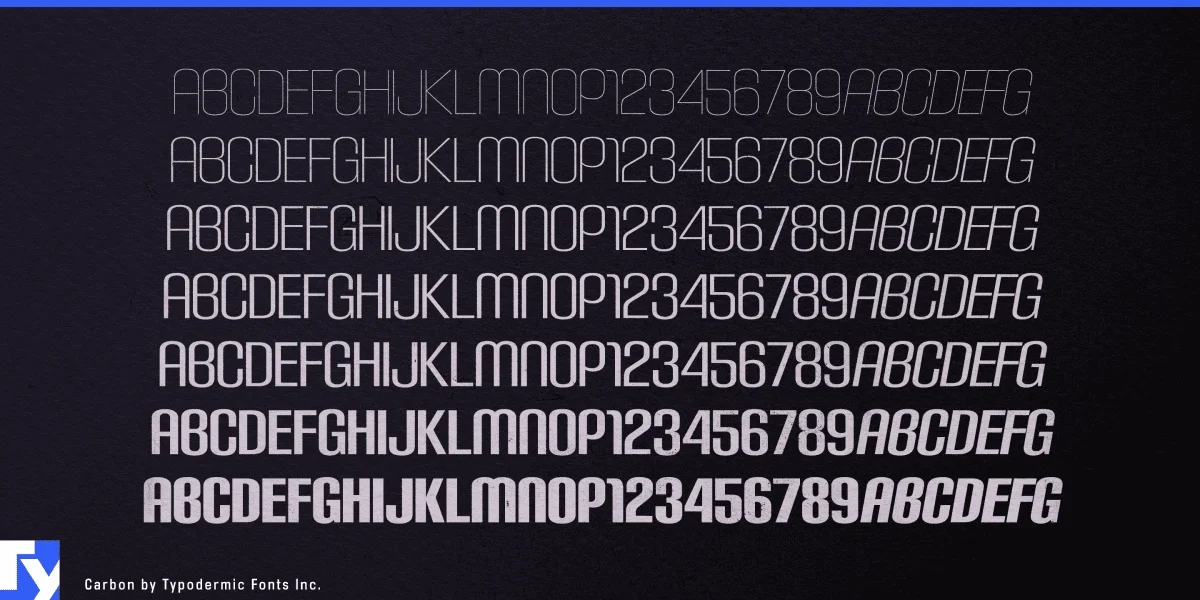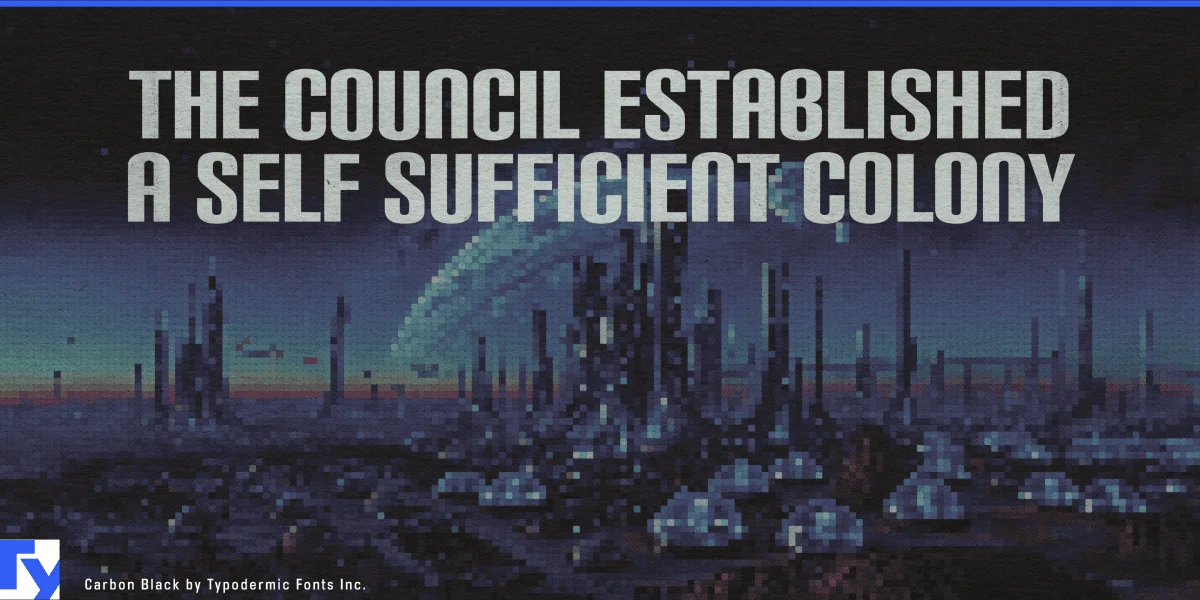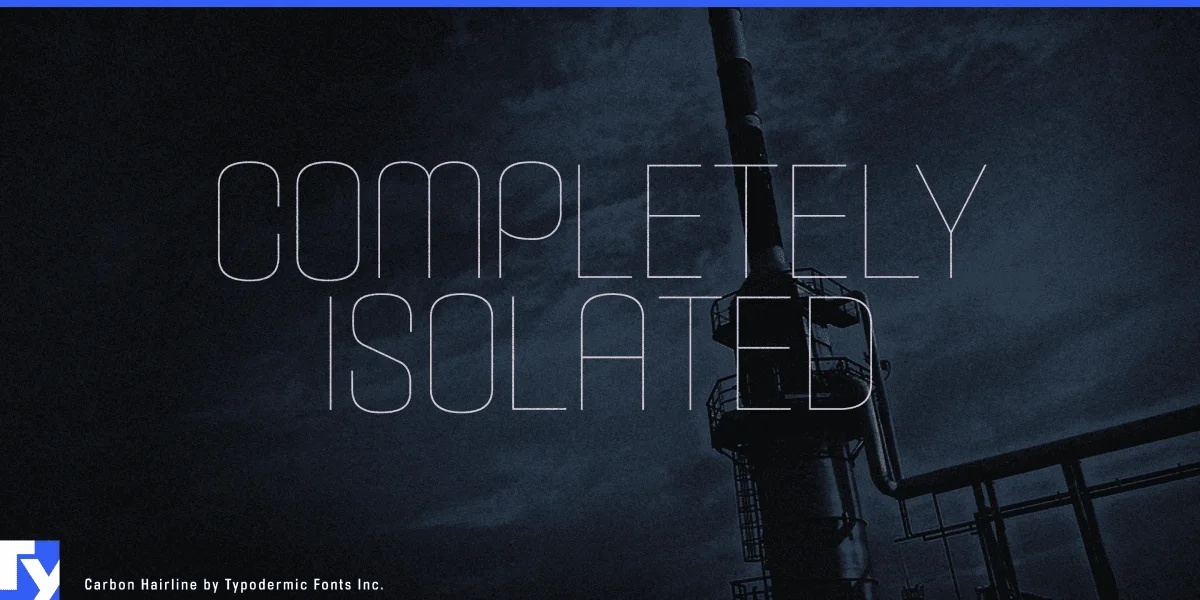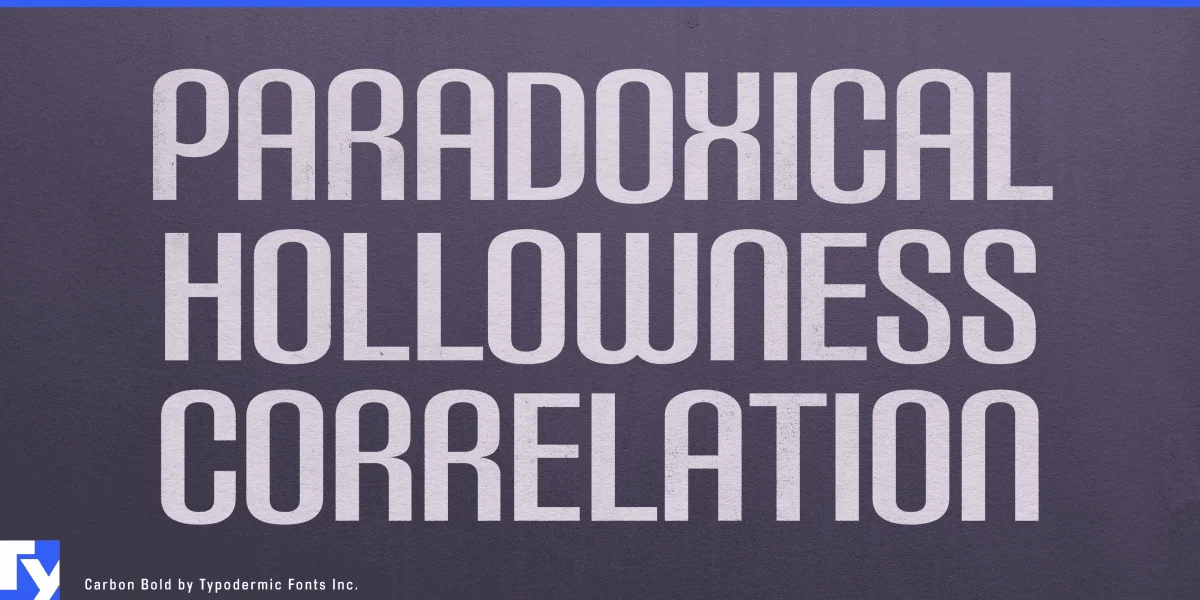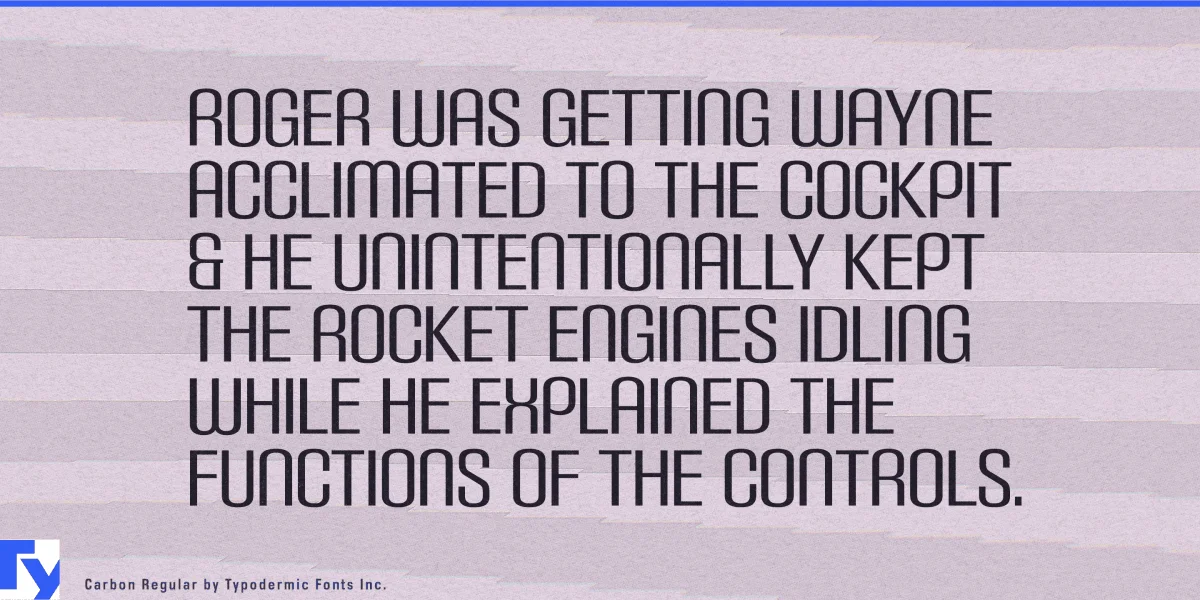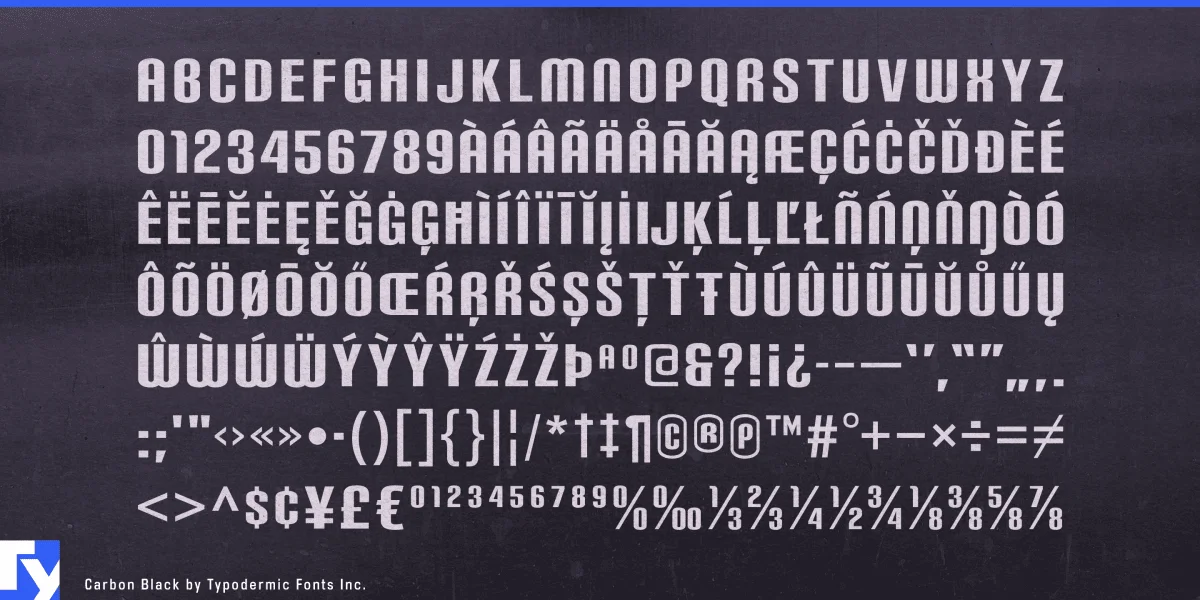
Carbon stands as a monument to typographic brutalism, a unicase typeface that has been shaping the landscape of graphic design since the dawn of the millennium. Its refined modularity and distinctive capsule forms challenge conventional notions of letterforms, offering designers a powerful tool to craft headlines that command attention and provoke thought.
This typeface doesn’t just speak—it shouts, whispers, and everything in between, thanks to its spectrum of seven weights. From whisper-thin to thunderously bold, Carbon provides the flexibility to fine-tune the visual volume of any message. The inclusion of italics adds another layer of nuance, allowing for subtle emphasis or dramatic contrast within a single family. But Carbon’s true genius lies in its two special effect styles, elevating it from mere typeface to design superpower. These unique variants open up a playground of possibilities, enabling creators to infuse their work with an extra dose of visual intrigue that sets it apart in a crowded media landscape.
Carbon’s linguistic versatility matches its design flexibility. Fluent in a vast array of Latin-based European writing systems, it speaks the language of impact from the fjords of Norway to the plains of Hungary. This expansive language support ensures that Carbon’s brutalist beauty can resonate across cultures and borders.
Choose Carbon when you need typography that doesn’t just sit on the page but leaps off it, grabbing viewers by the eyeballs and refusing to let go. It’s for designers who understand that in a world of whispers, sometimes you need to SHOUT. With Carbon, every headline becomes a statement, every logo an icon, and every design a bold declaration of visual intent.